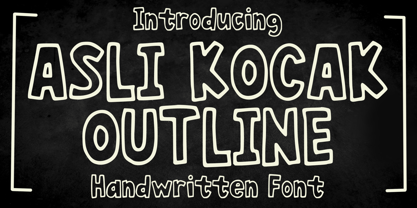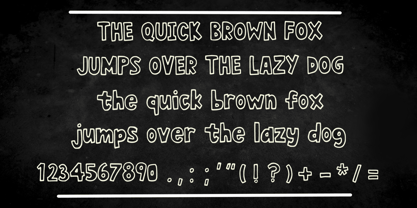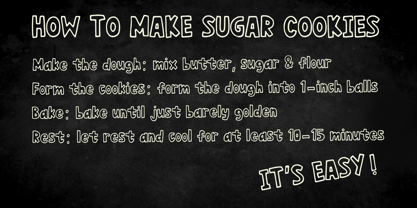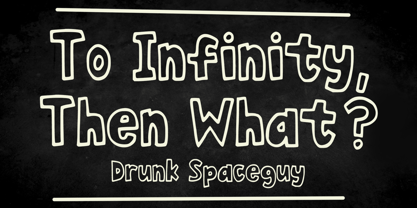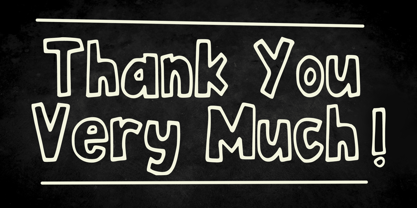
Asli Kocak Outline
by Mvmet
The Asli Kocak Outline Font Family was designed by Gabriel Valentinus and published by Mvmet. Asli Kocak Outline contains 1 styles. More about this family
Immerse yourself in the quirky charm of Asli Kocak Outline, a playful hand-drawn chalk typeface inspired by the whimsical world of cartoons. Its eccentric contours and effortless style make a bold statement, capturing attention and delighting the eye. Versatile and dynamic, Asli Kocak Outline is perfect for a variety of design needs, whether it's the casual effervescence of t-shirt designs, the rustic appeal of restaurant menus, the warm casualness of greeting cards, or the creative chic of blogs. With its adaptable flair, it even transforms stickers into captivating art pieces. Embrace the cool aesthetic that Asli Kocak Outline offers and use it to infuse life into your delightful designs!
Designers: Gabriel Valentinus
Foundry: Mvmet